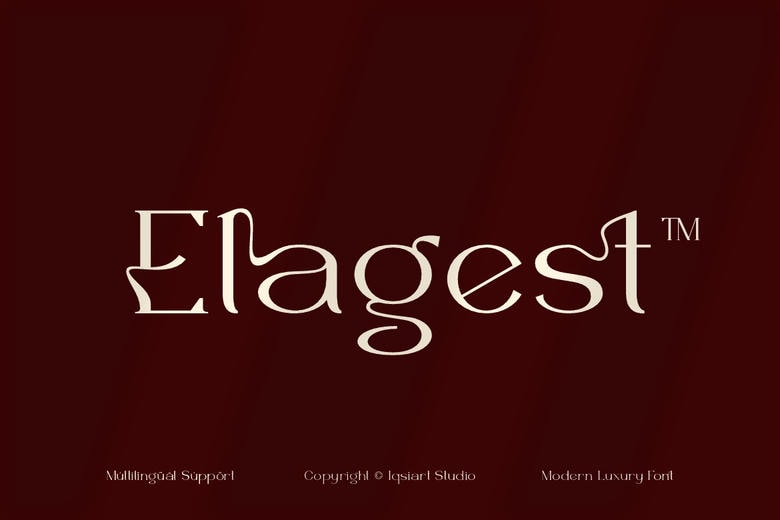
Elagest Font
Elagest Font is a serif and natural display typeface that is applicable in different design requirements. We have numerous themes and font styles to choose: check our profile to see more and select the best style to use in your project.
Elagest Serif Font